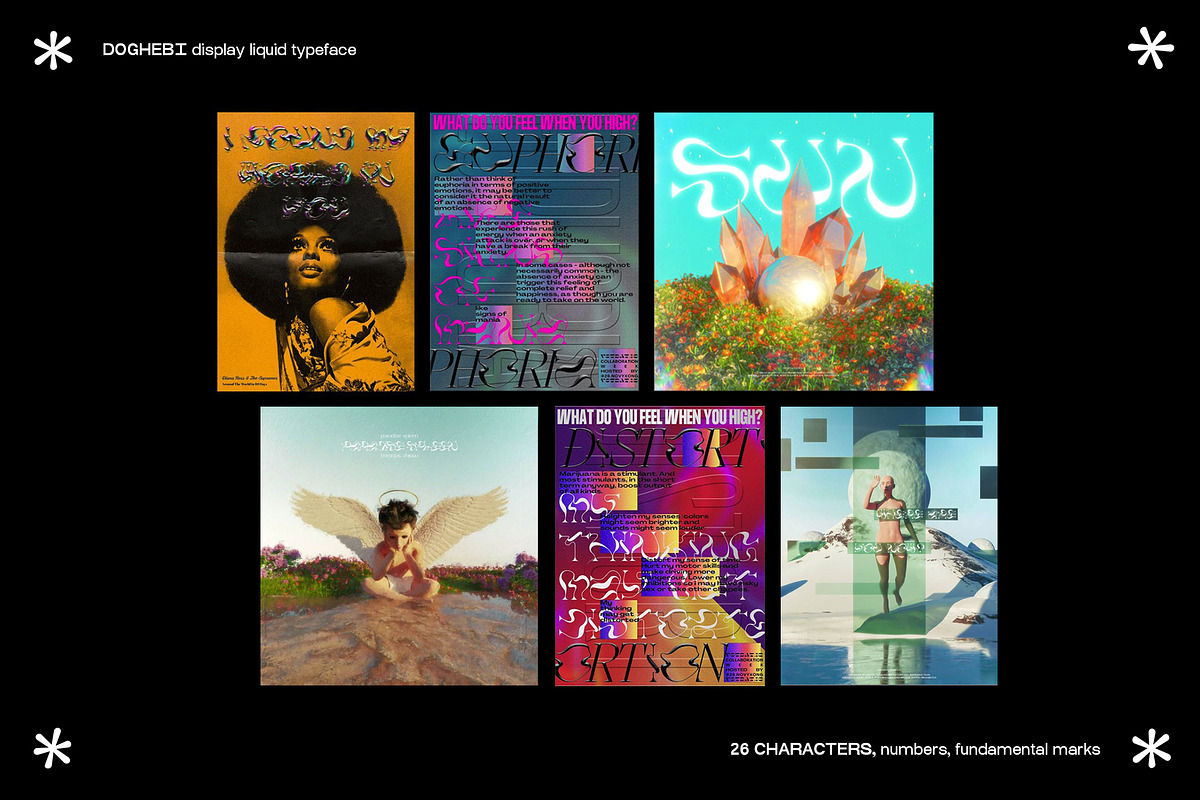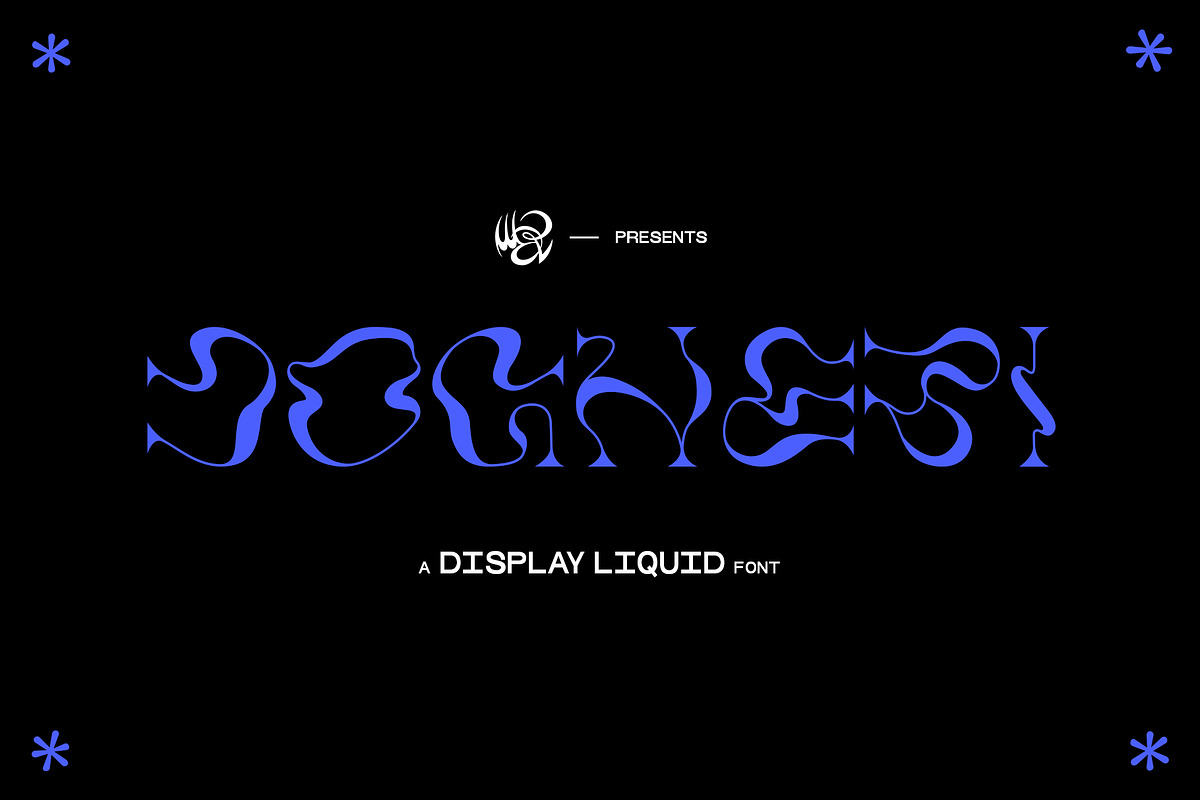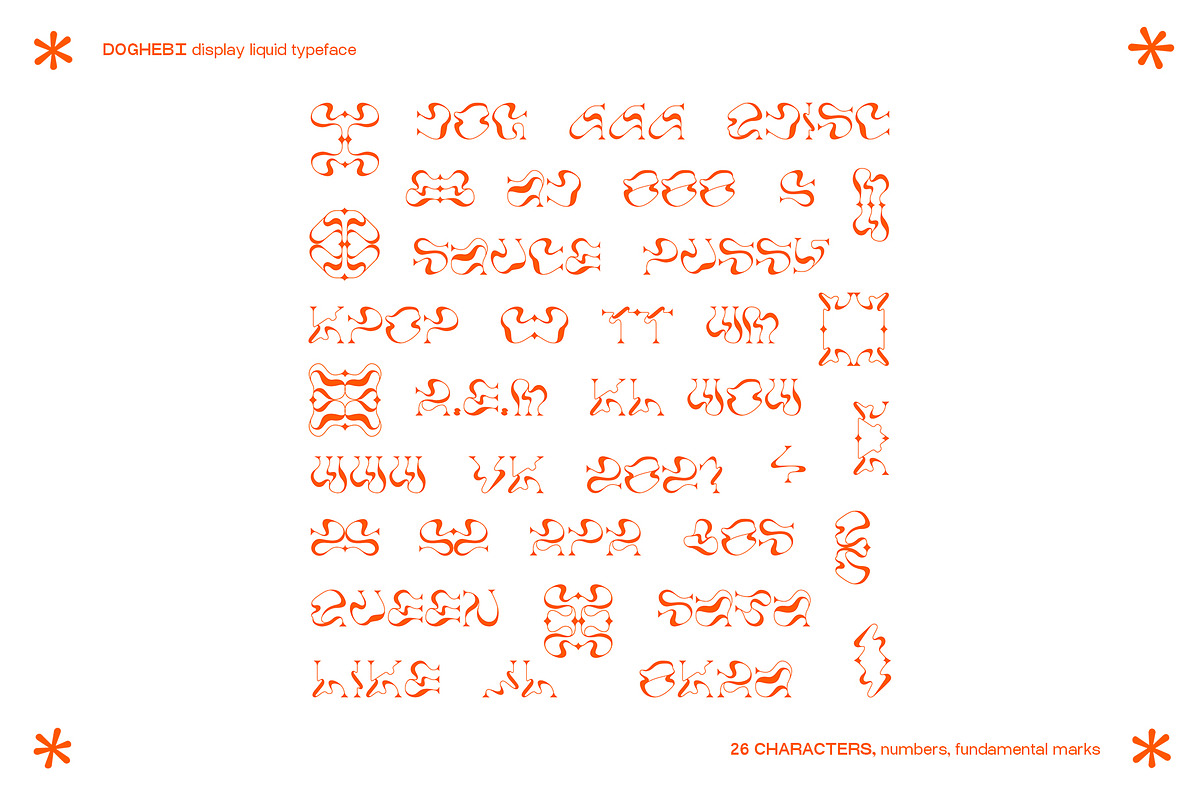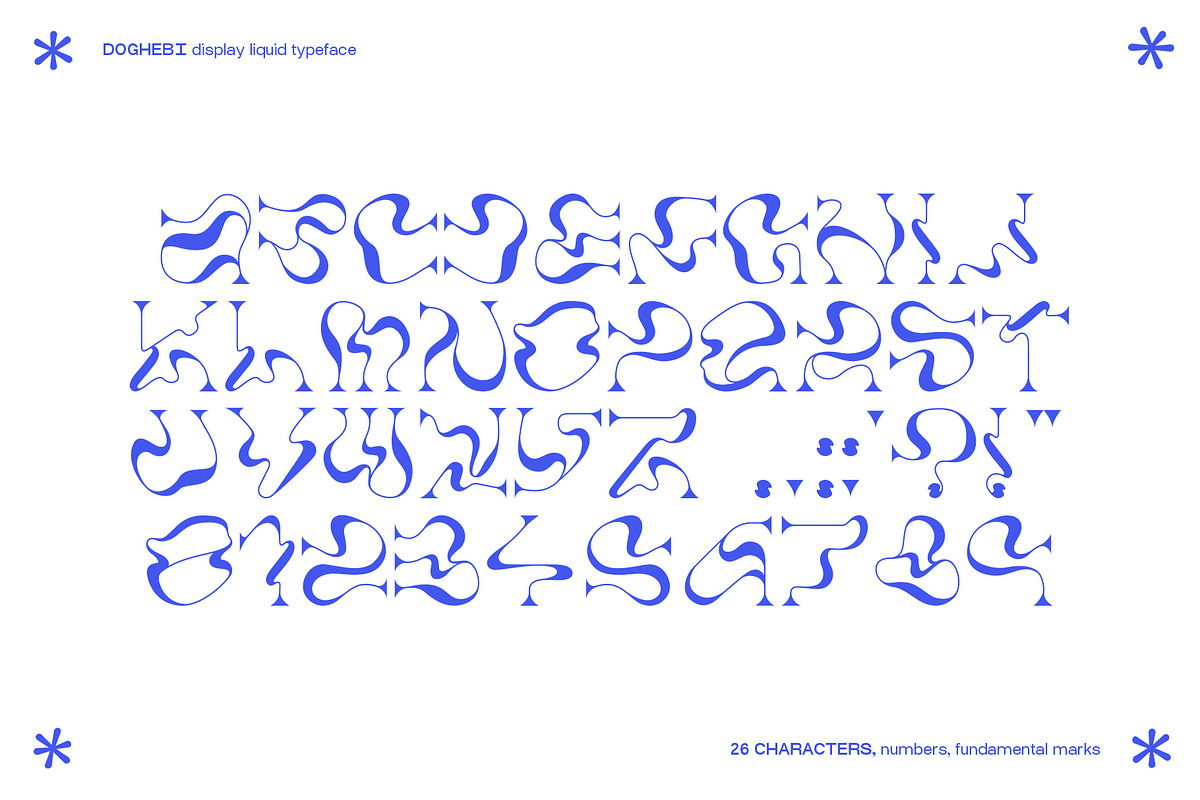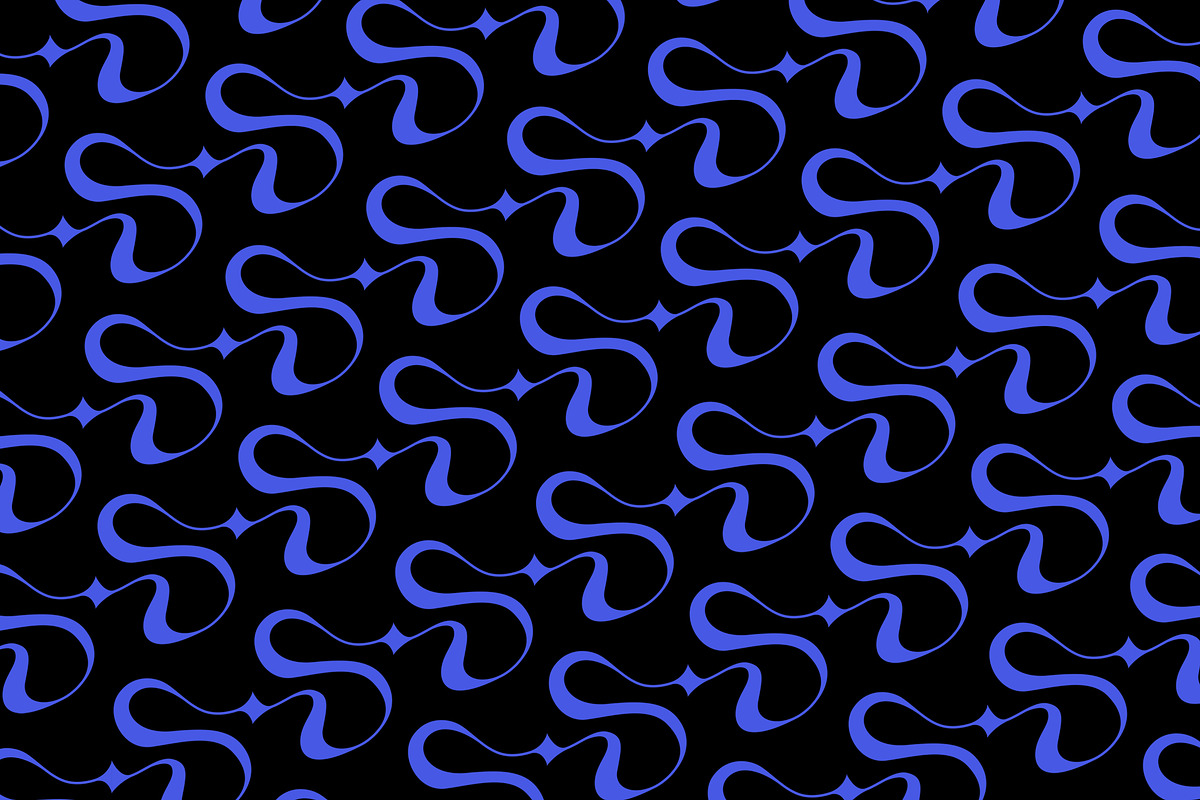
DOGHEBI (Display Liquid Typeface)
This is DOGHEBI, a monospaced liquid font full of all 26 characters, numbers and the essential marks, it works perfectly to create big titles and headlines for any kind of artwork, poster, design for merch etc... This font combines together more styles, it has serif characteristics, it has strong lines and thinner ones, it's sinuous in every curve and it's really unique, there aren't font like this, the only thing that i can suggest is to avoid using it for writing in really small pts, it can become hard to read! But it hasn't be created to do that! You can also create some great combinations, _____